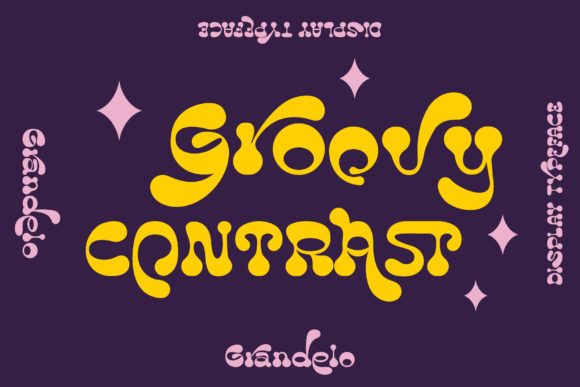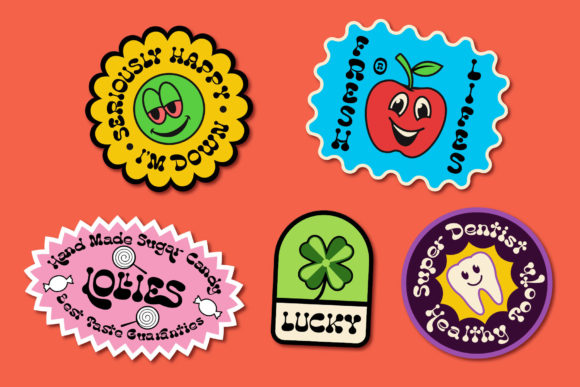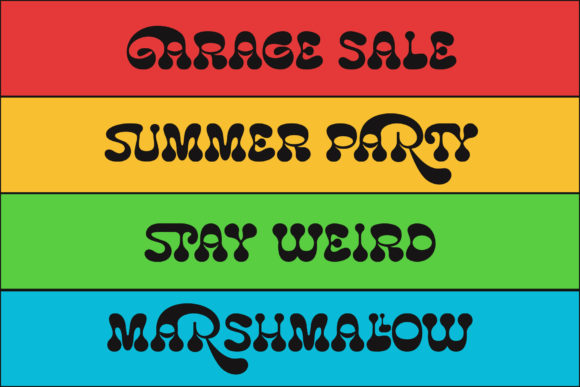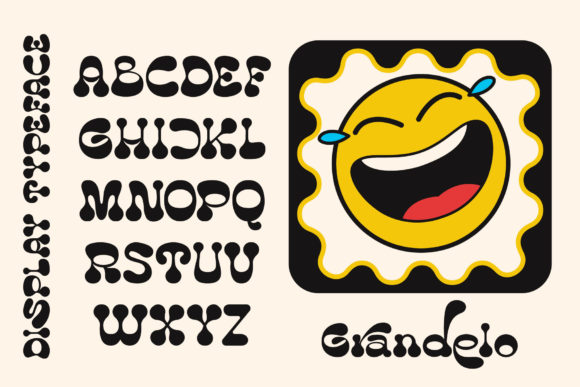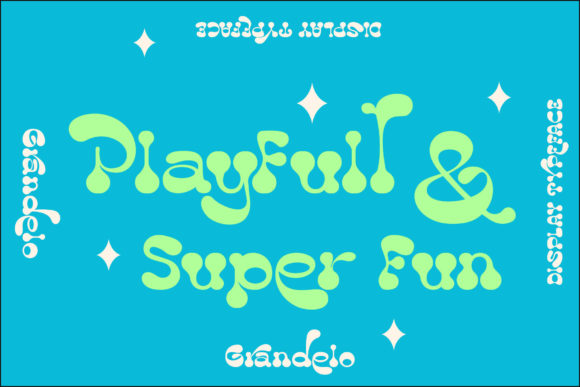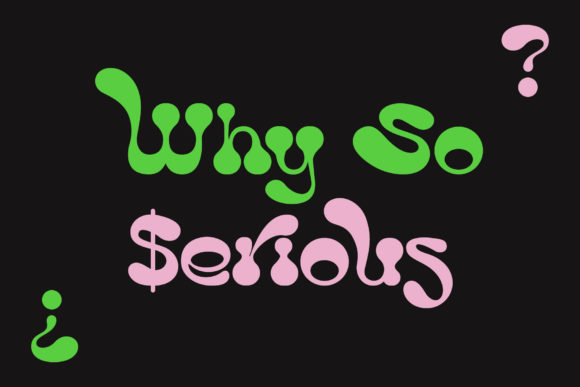
The Grandelo Font: A Retro Revival for Your Designs
I’ll never forget the design project that led me to discover the Grandelo font. I was working on a branding project for a vintage-inspired boutique, and I was struggling to find the perfect font to capture the essence of the brand. That’s when I stumbled upon Grandelo, a cool, whimsical, and retro-styled display font that instantly won me over. In this article, I’ll share my love for Grandelo, its features, and how to make the most of it in your designs.
An Honest Review of Grandelo
What I Love About Grandelo ✨
- ✅ Its incredibly distinct style that’s perfect for creating spectacular designs
- ✅ A wide range of OpenType features, glyphs, and stylistic alternates to experiment with
- ⚠️ Some users may find the font a bit too ornate or over-the-top for certain projects
- ⚠️ Limited use in body text due to its display font nature
The Story Behind Grandelo
Grandelo was designed by a team of creatives who wanted to bring back the nostalgic feel of retro typography. Inspired by vintage posters, advertisements, and signage, they crafted a font that’s both nostalgic and modern. The result is a unique, eye-catching font that’s perfect for designers, crafters, and creative hobbyists looking to add a touch of personality to their work.